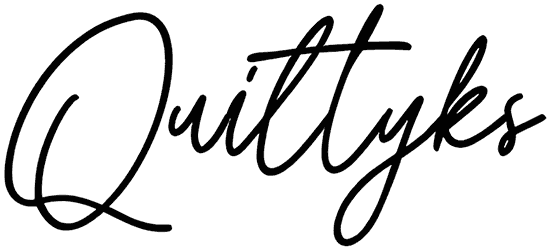
Quiltyks Font
While standing out alongside thousands of high-end graphic content is getting more difficult every moment, a magical script font such as Quiltyks would be really helpful and makes your artwork, including business cards, wood engravings, book covers, headlines, and web pages look shining.
Since its characters come with a cursive style, reading some of its letters would be a little bit tricky. While it carries a sense of softness, delicacy, and precision, the lack of numbers won’t be a problem.